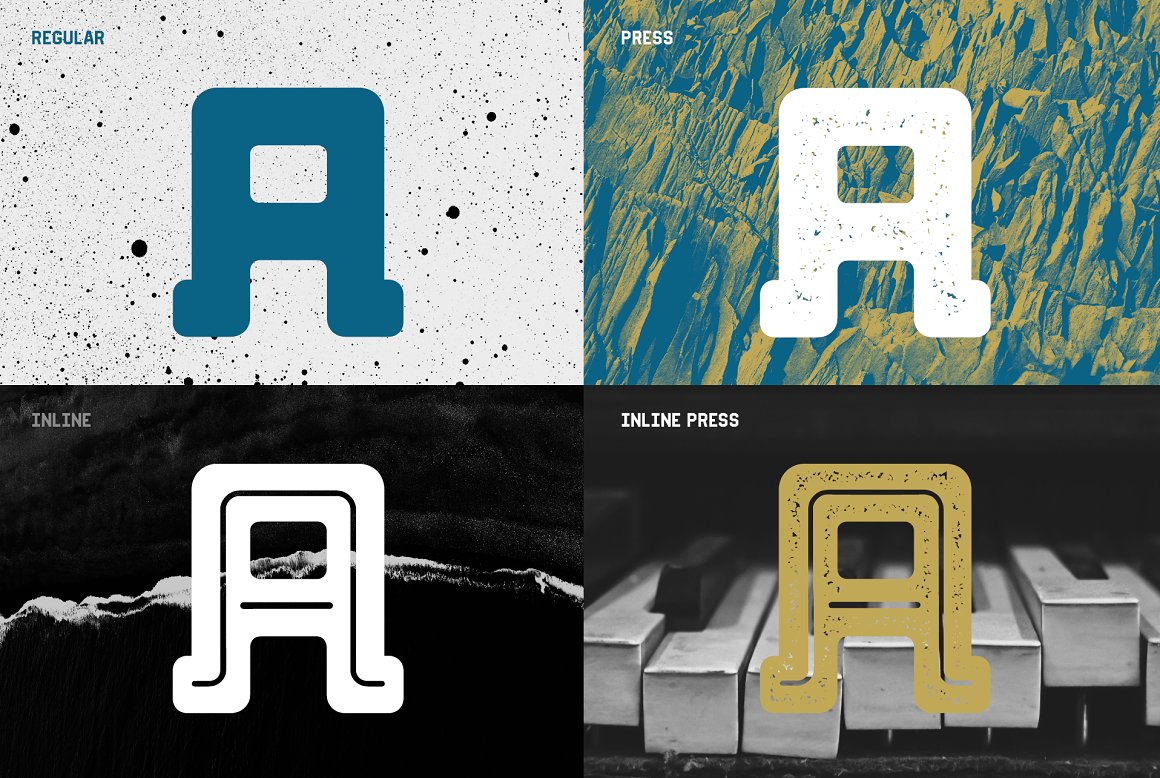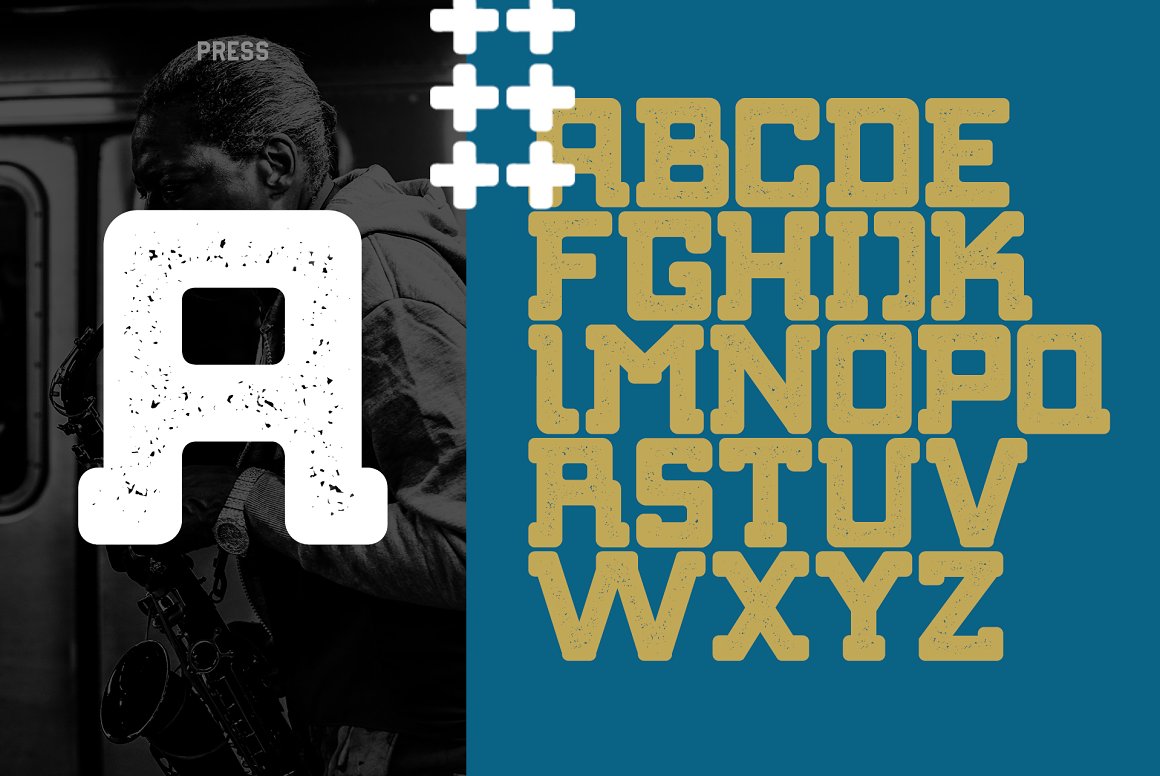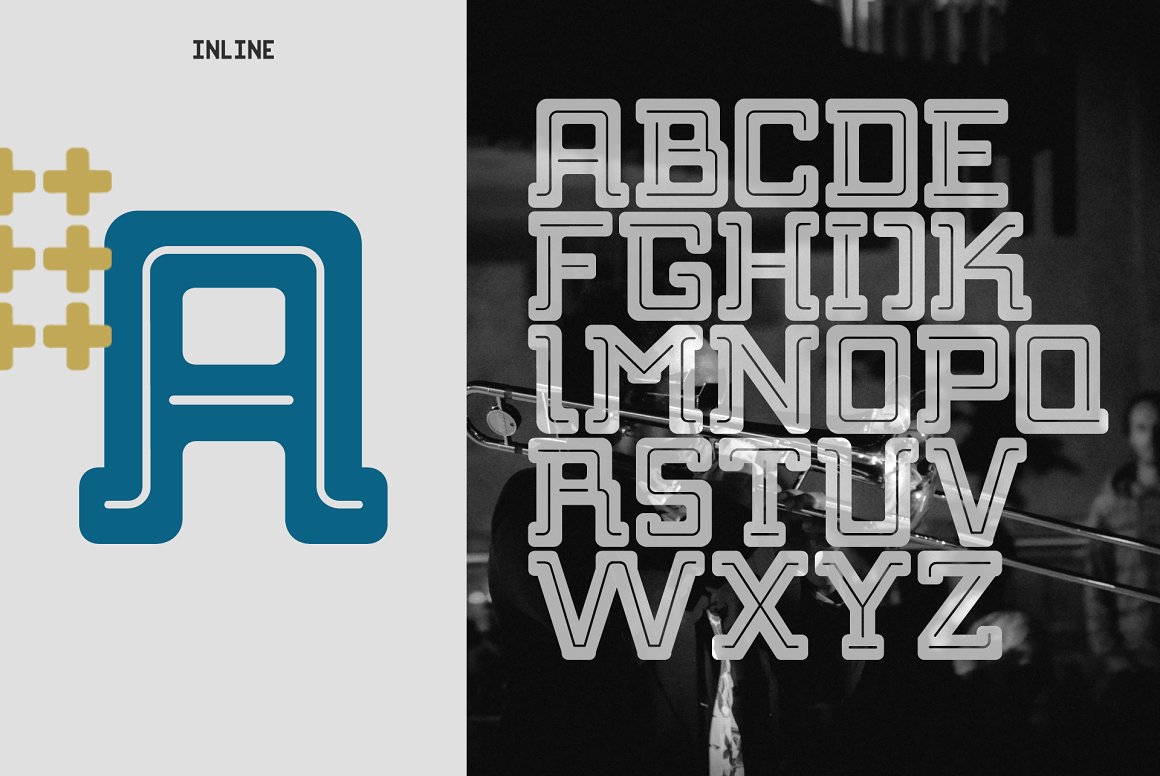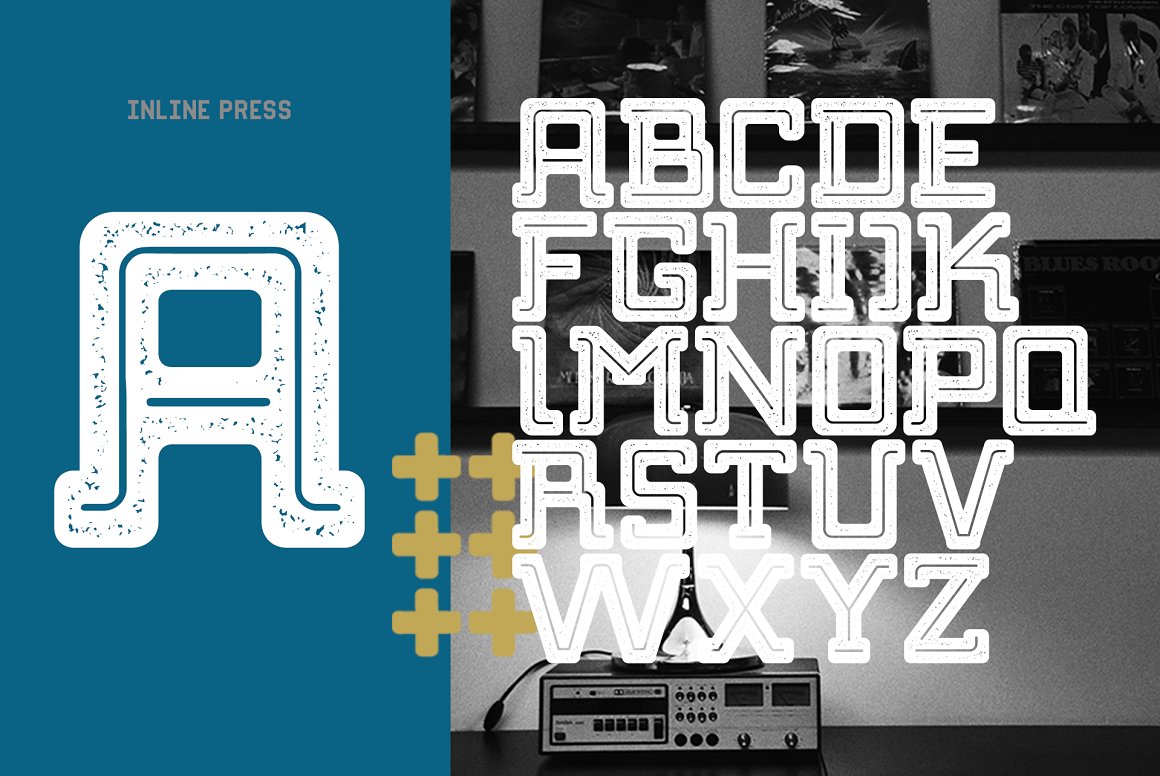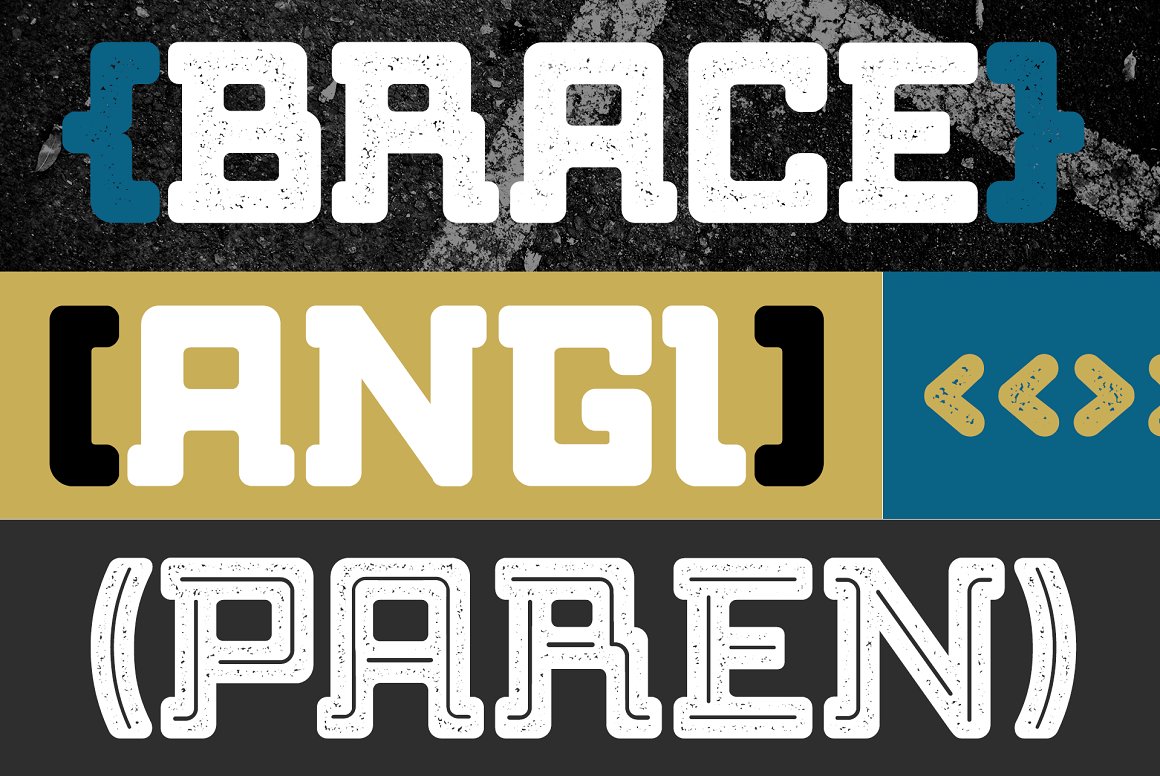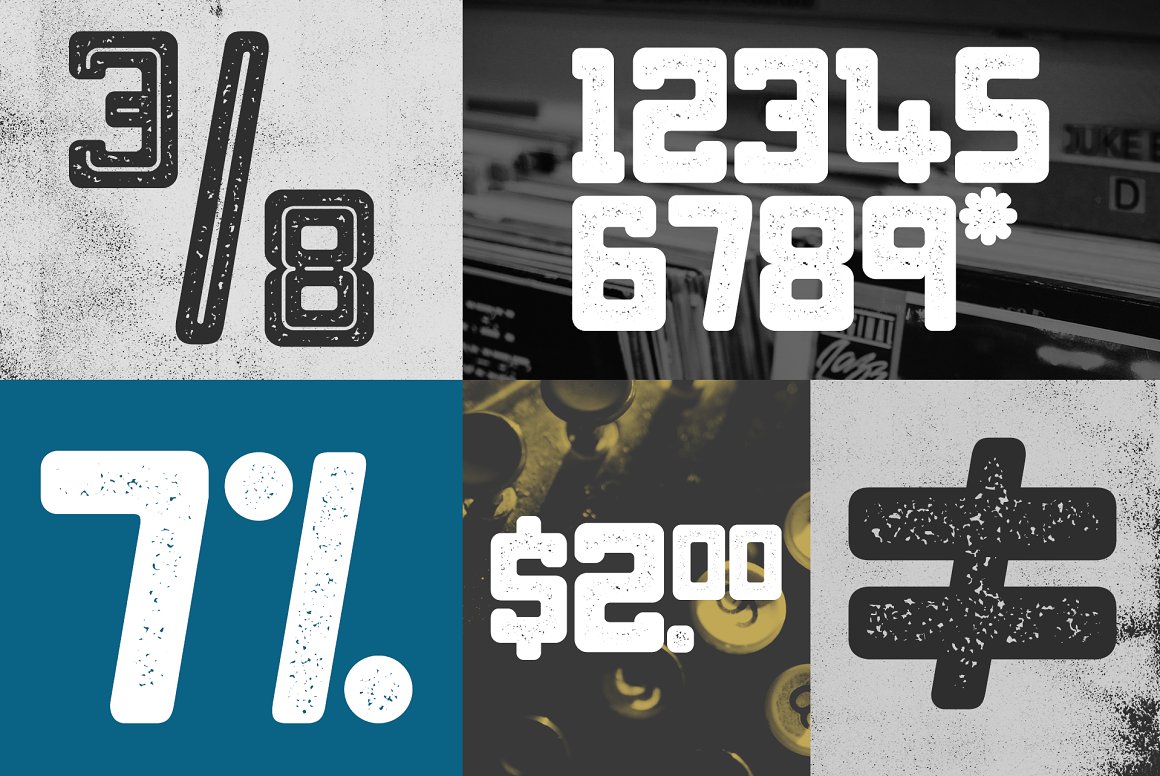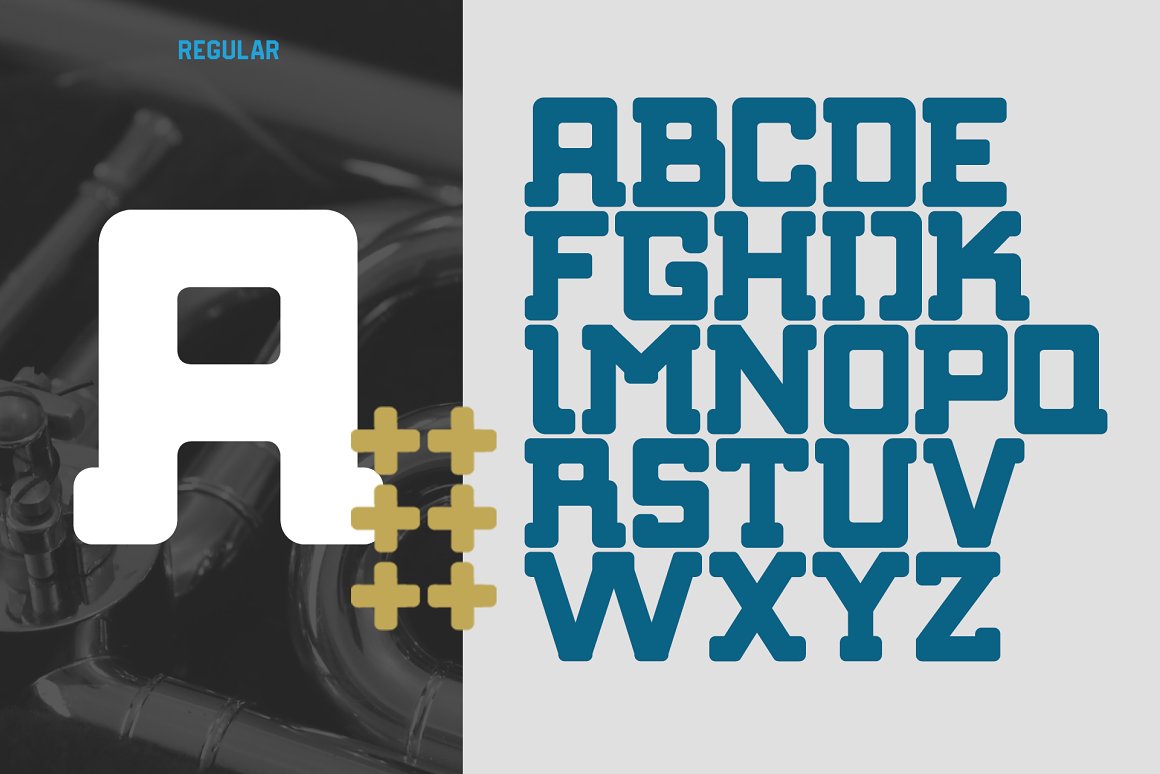
Bebop Slab Font Family
Bebop Slab is a unique and highly ledgible display typeface that is tailor-made for use in impactful headlines and iconic word-marks. It comes with extended glyphs for multiple language support and a variety of weights.
Bebob Slab Font Family comes in four unique styles:
- Regular
- Regular Press
- Inline &
- Inline Press